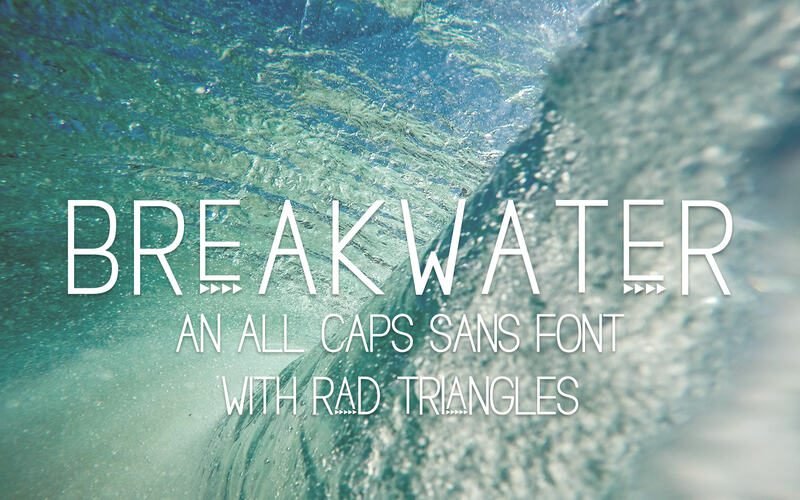
Breakwater Triangle Sans Fonts
Breakwater, an all-caps sans commercial use font with rad triangle details. Type in a combo of capital & lowercase to add a little extra flair to your next project, perfect for branding, posters + ads, menus, & more.
Breakwater includes Western European language support.